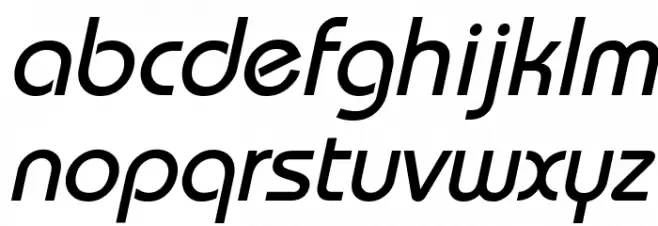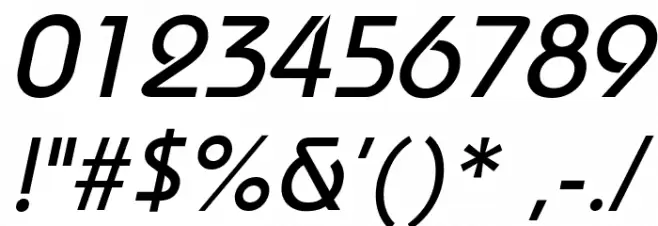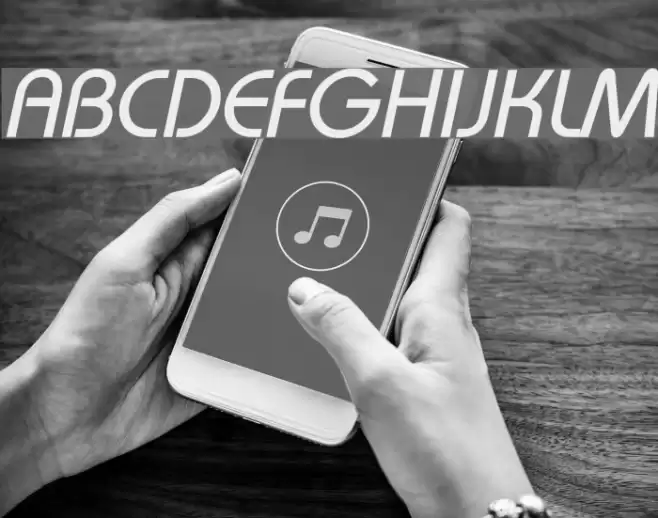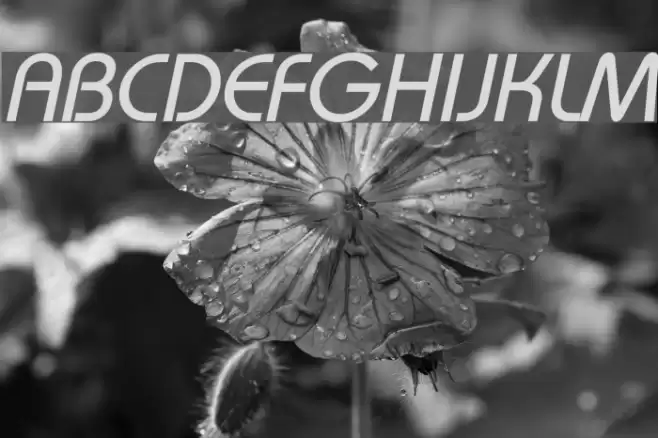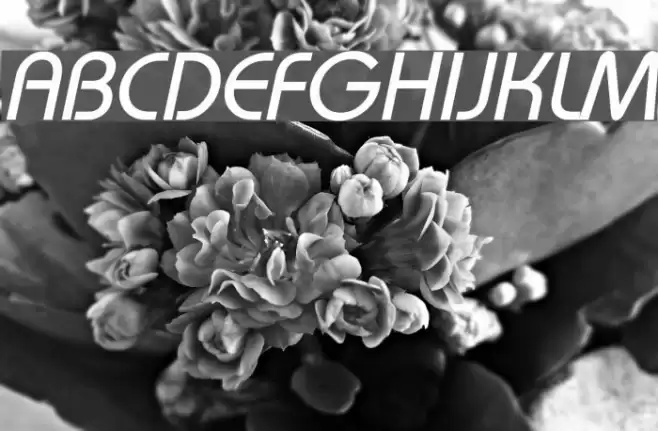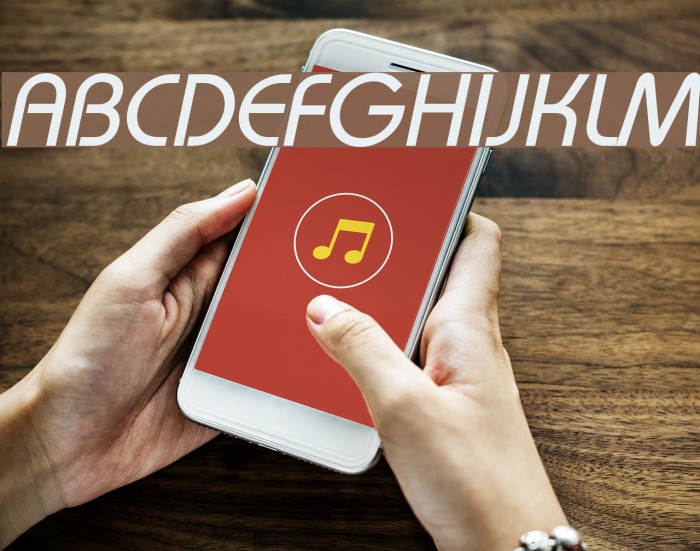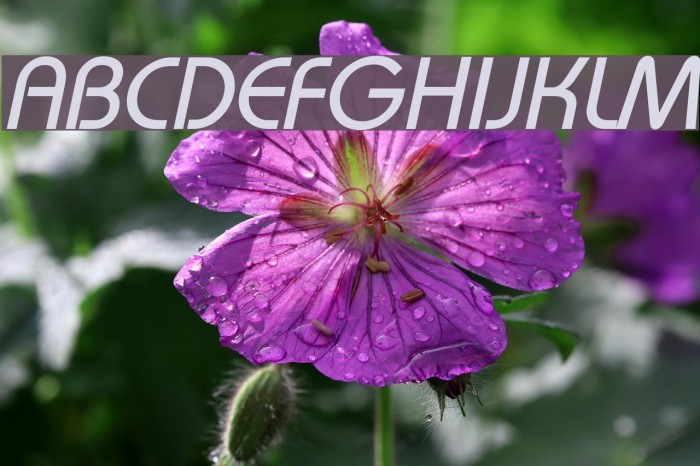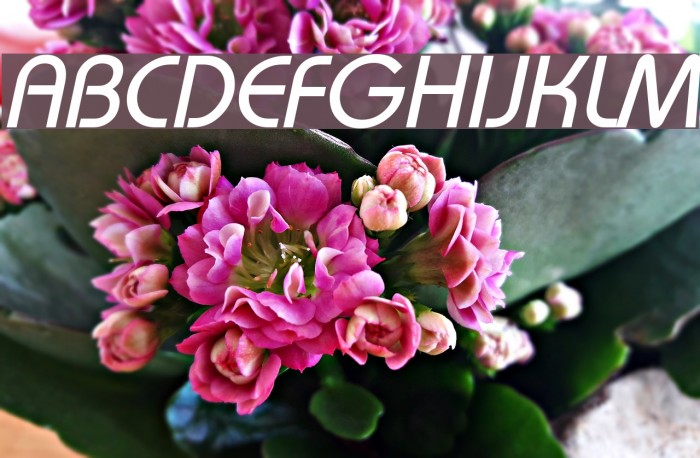
Bimini Italic
This font features a sleek and modern design with a distinct italic slant, giving it a dynamic and forward-moving appearance. The characters are crafted with smooth curves and clean lines, providing a sense of elegance and sophistication. The uppercase and lowercase letters maintain a consistent style, with rounded edges and a slight tilt that enhances readability while adding a touch of flair. The numerals are well-proportioned and align seamlessly with the overall aesthetic. Special characters are included, maintaining the same stylistic coherence. This font is ideal for projects that require a contemporary and stylish look, such as branding, advertising, and digital media.
A sleek, modern italic font with smooth curves and a dynamic appearance.
- Proposed Projects: Ideal for branding, advertising, digital media, and modern editorial design.
- Use Case: Headlines, Logos, Digital media